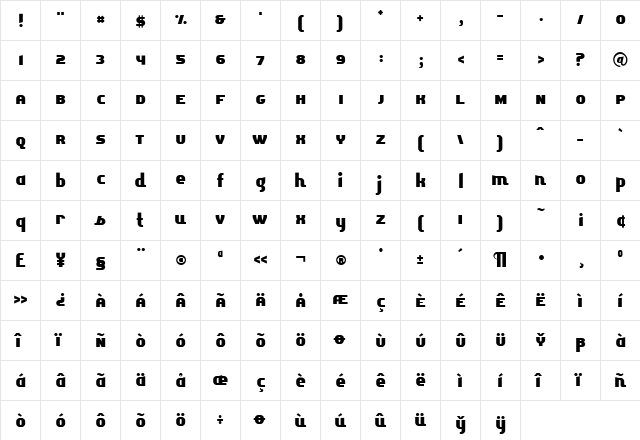
Quadricula Regular
Design Context for Quadricula Typeface
Quadricula takes a measured approach to typography — its balanced proportions and neutral character make it a reliable workhorse for both digital and print work.